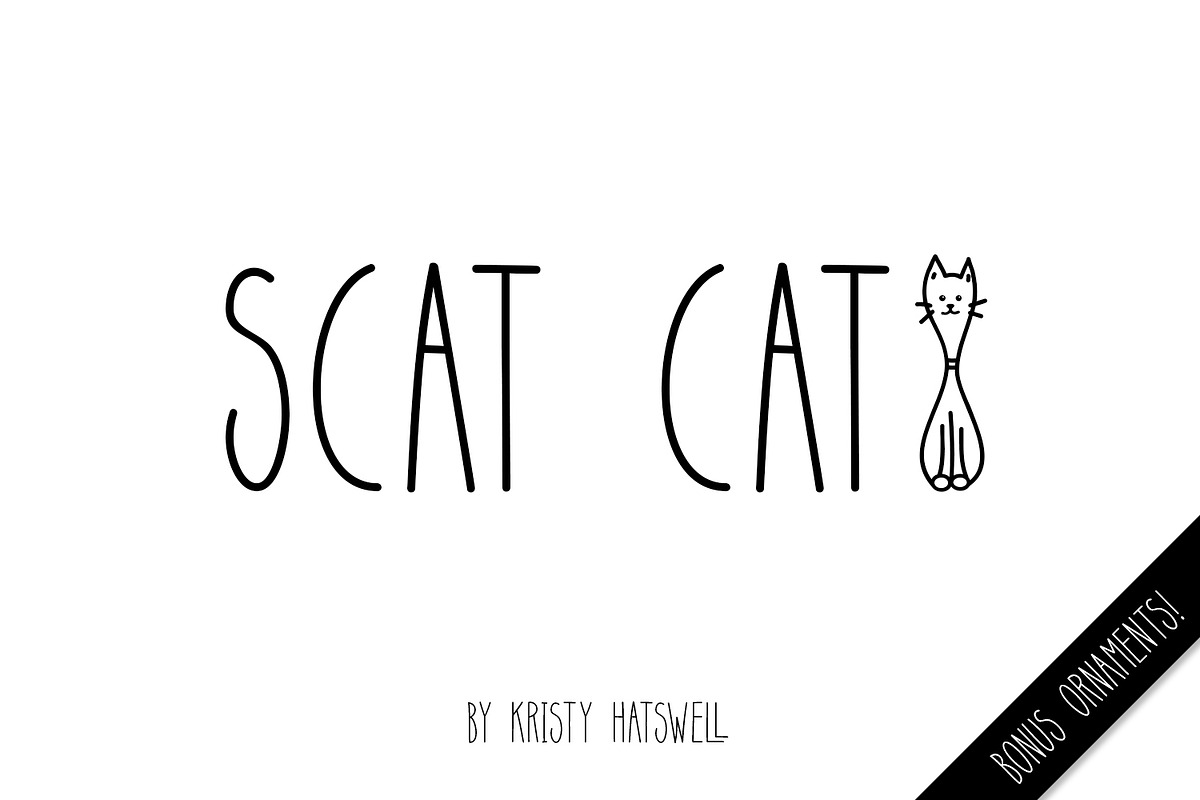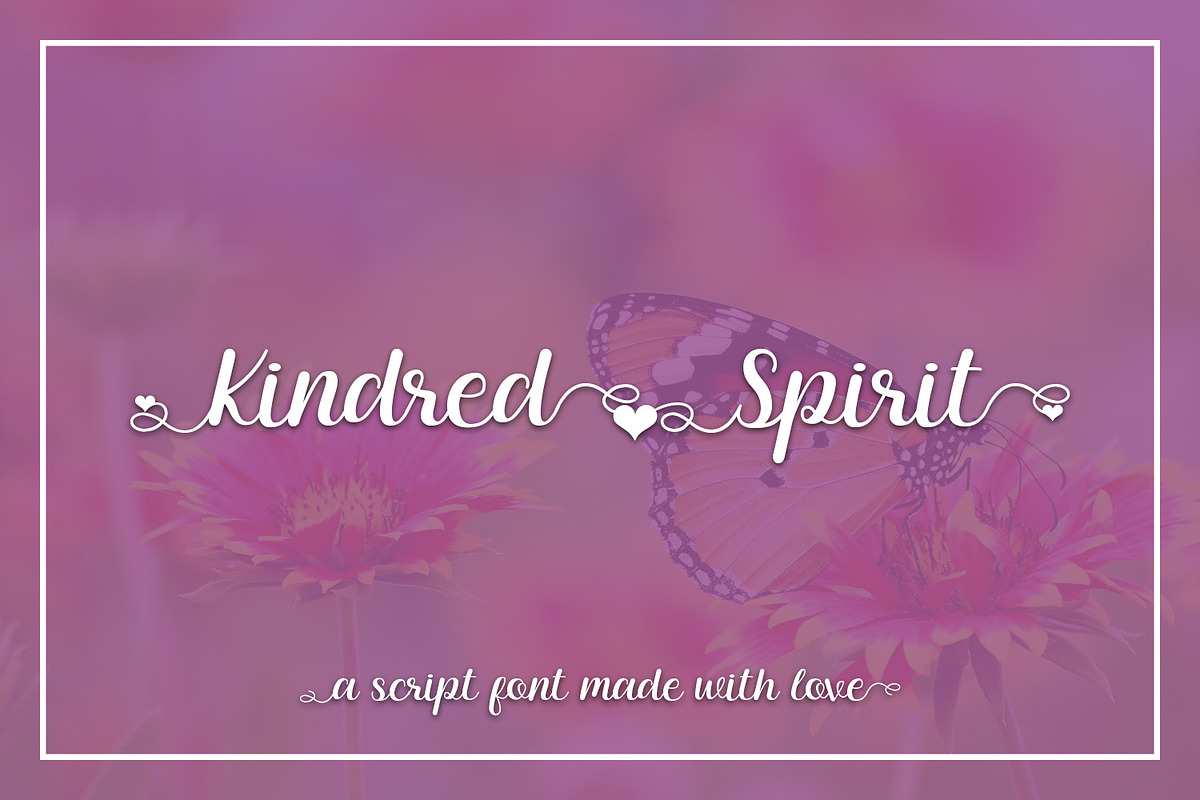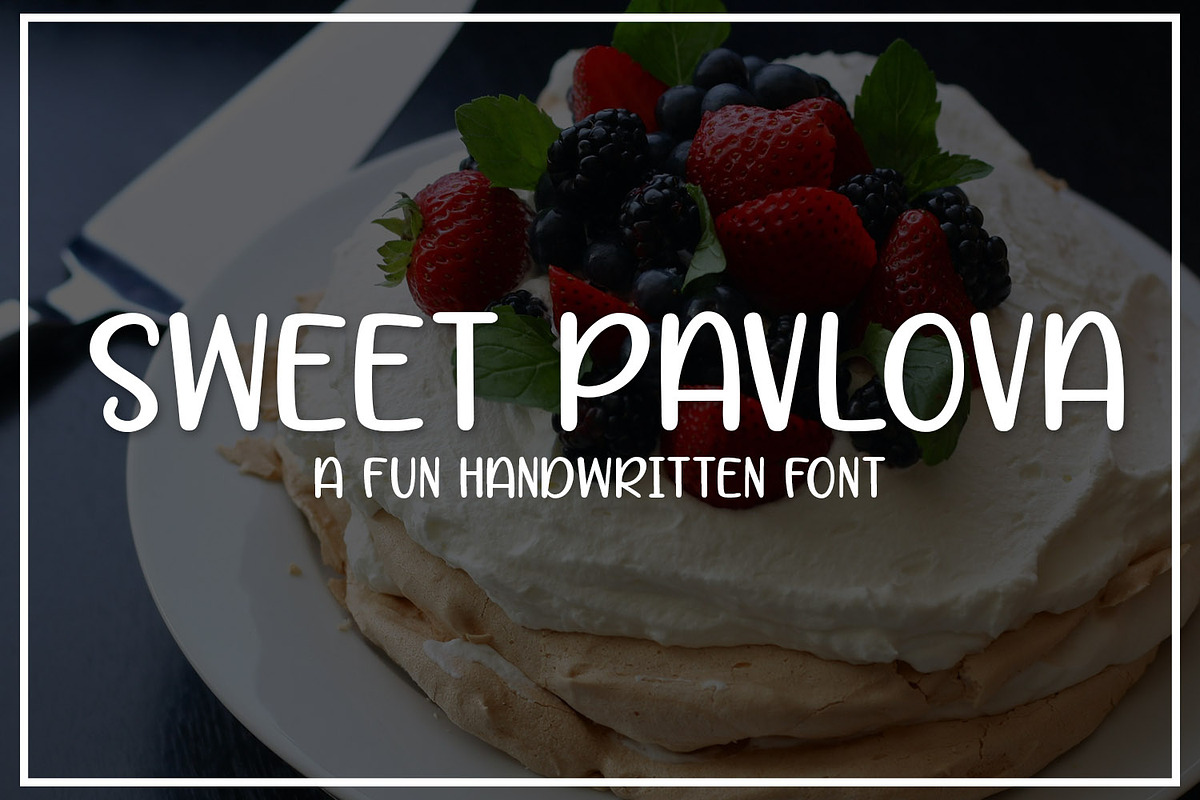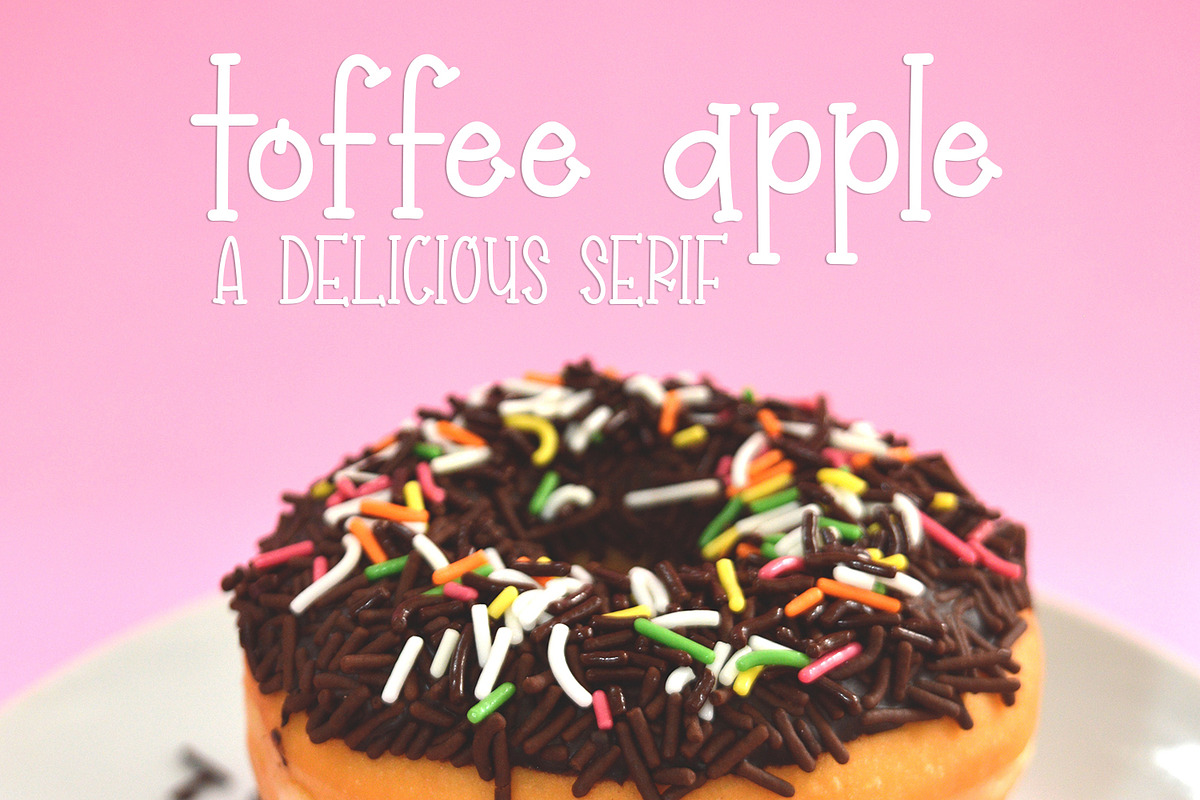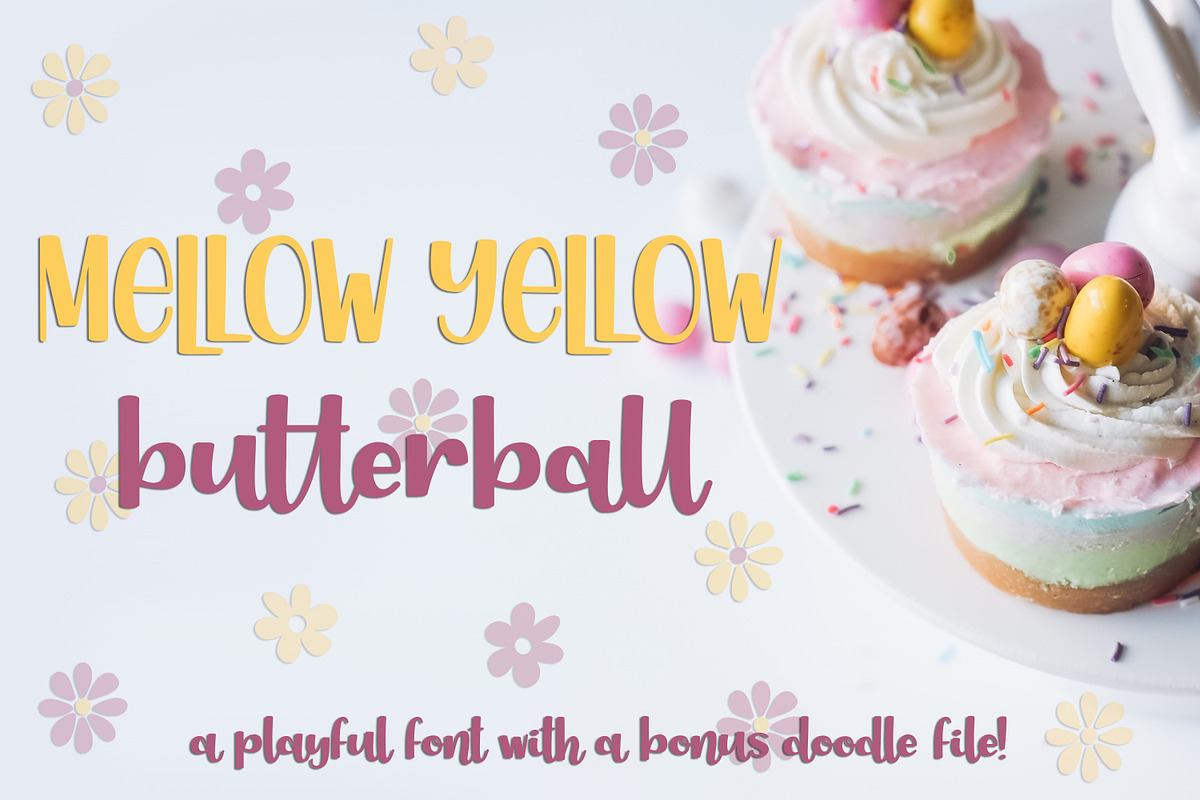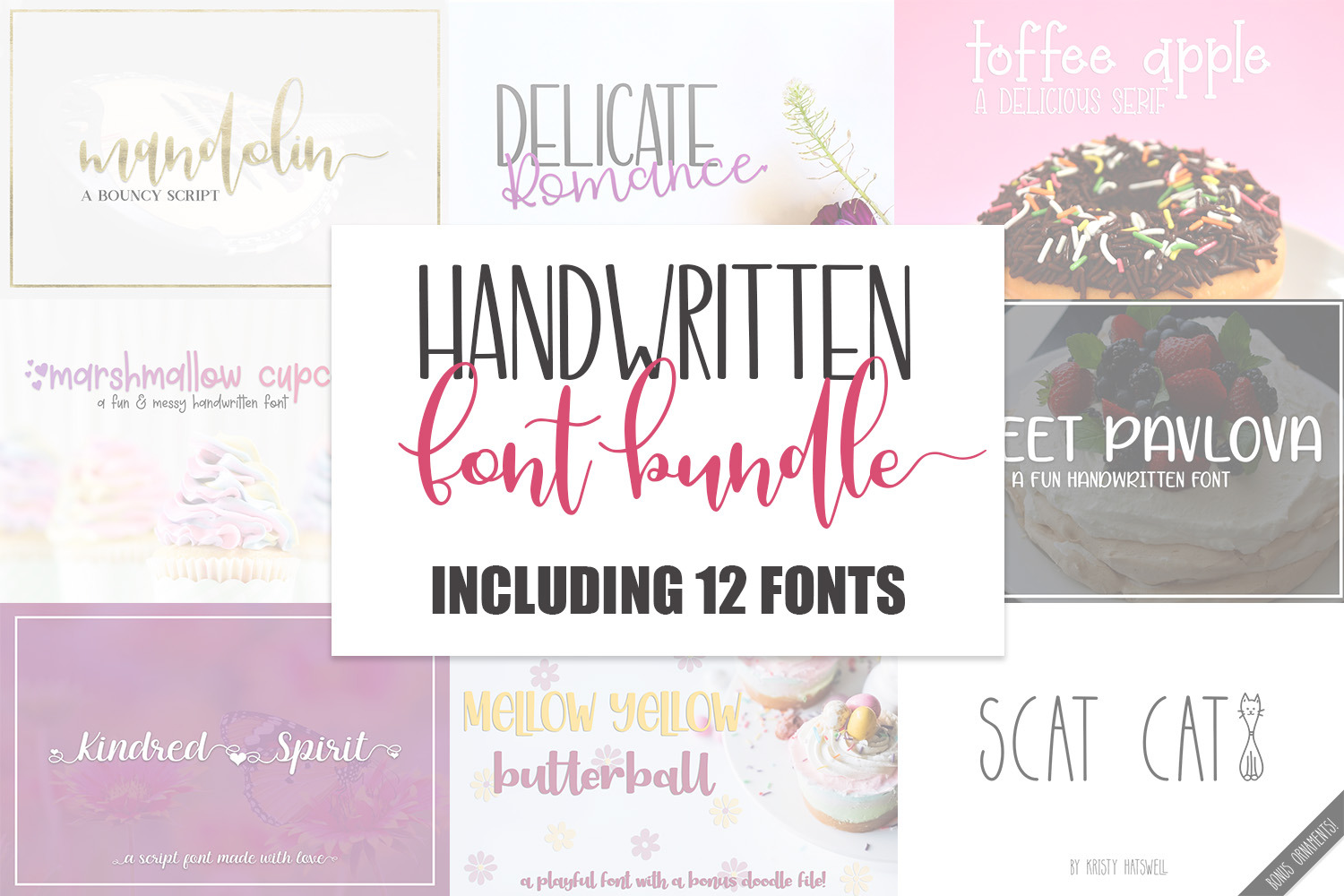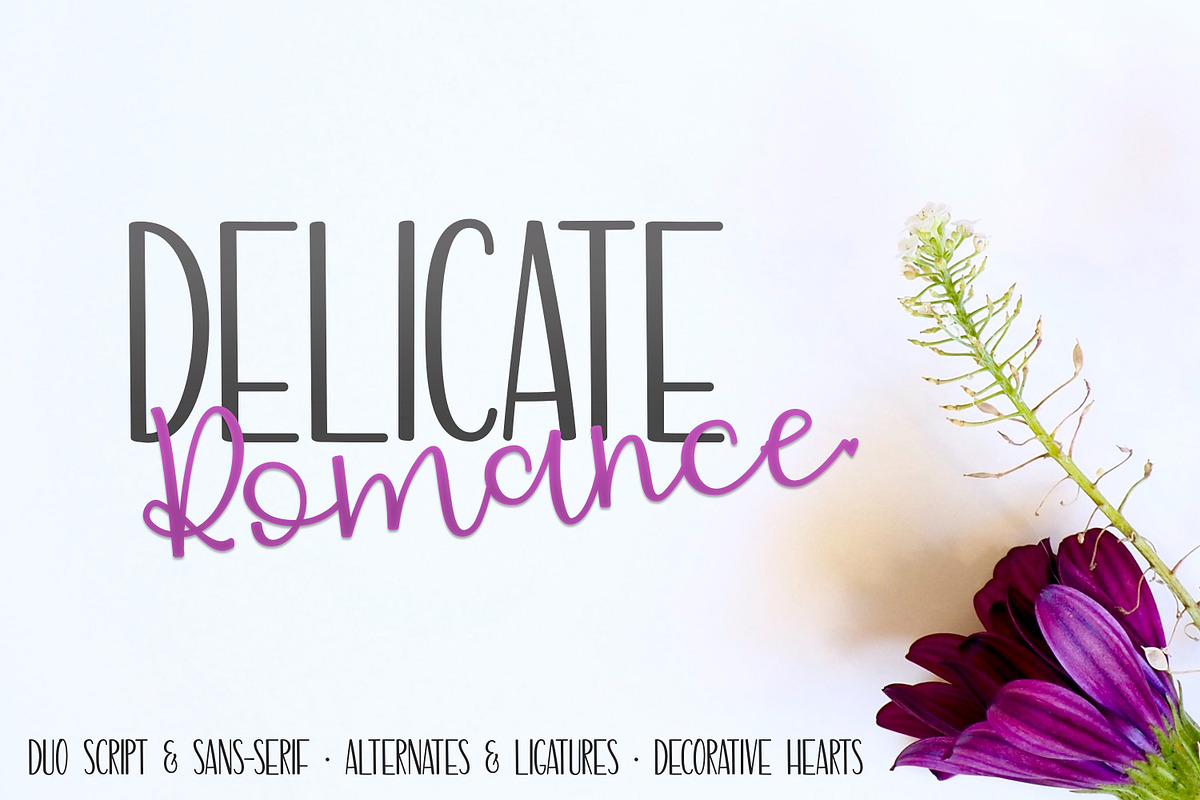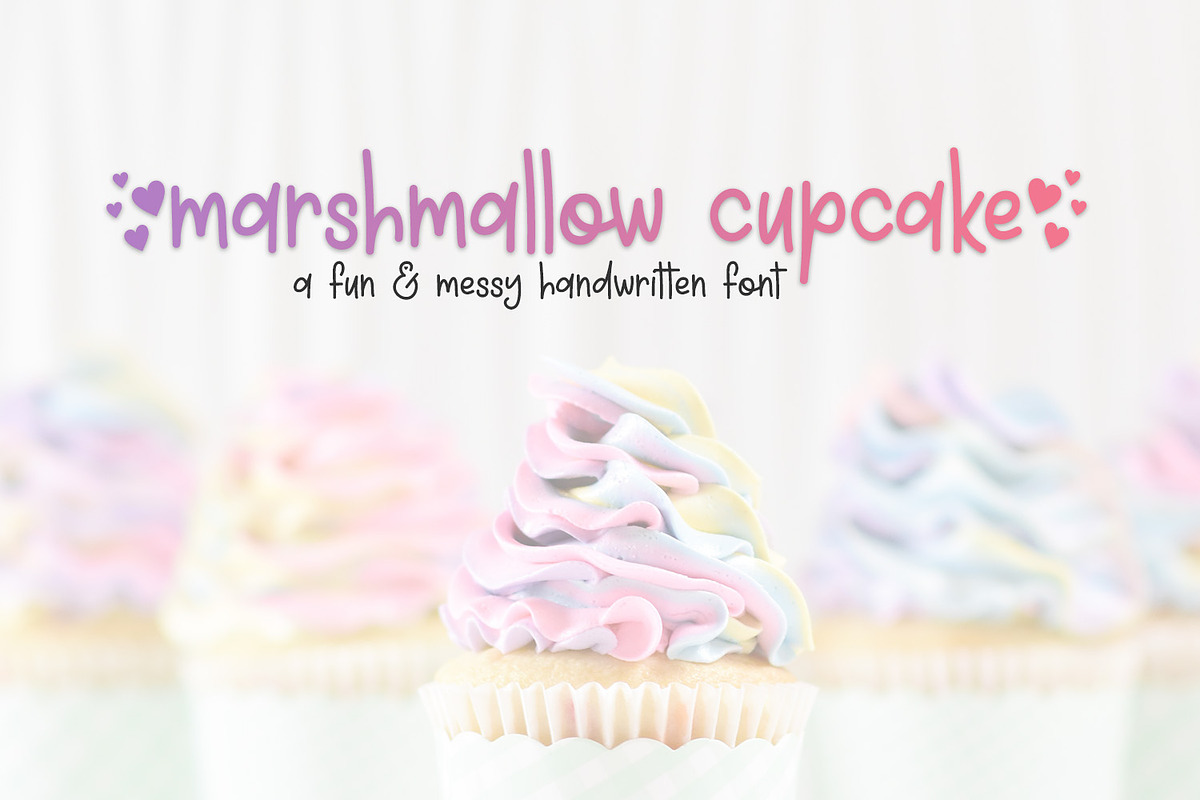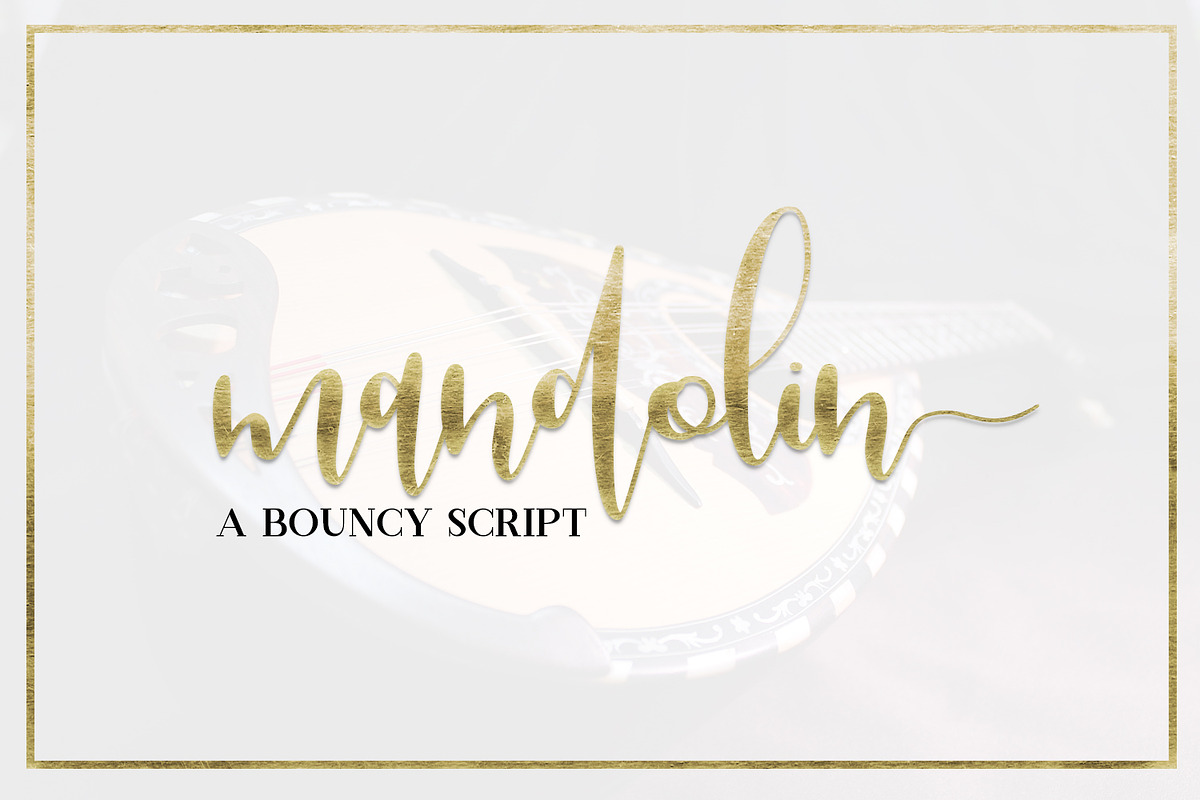
Handwritten Font Bundle - 12 Fonts
This meticulously curated handwritten font bundle features a diverse array of 12 font files, spread across 8 unique font families, each bringing its own charm and personality to your creative projects.
Elevate your design work with the Handwritten Font Bundle, where each font not only tells a story but also adds a layer of depth and personality to your projects. Perfect for designers, crafters, and creatives who appreciate the beauty of hand-drawn elements, this bundle is your ticket to captivating and memorable designs.
Mandolin: A handwritten bouncy script font, Mandolin dances across the page with lively, energetic strokes, perfect for adding a dynamic touch to invitations, logos, and personal blogs.
Delicate Romance: This duo combines a script and sans serif font, adorned with hearts perfect for Valentine's Day, weddings, and any project that calls for a touch of love. Its versatility makes it ideal for romantic invitations, branding, and heartfelt designs.
Marshmallow Cupcake: A fun, handwritten bouncy font that embodies joy and playfulness. Marshmallow Cupcake is your go-to for party invitations, children's book titles, and branding that aims to bring a smile.
Toffee Apple: A deliciously quirky serif that captures the essence of fun and adventure. With its unique character, Toffee Apple is suited for thematic event posters, artisanal product labels, and creative storytelling.
Sweet Pavlova: Sweet Pavlova offers the lightness of a handwritten sans serif, making it a delightful choice for dessert menus, fashion labels, and any project that seeks a gentle, inviting touch.
Kindred Spirit: A romantic script that flows effortlessly, Kindred Spirit is designed to bring elegance and a personal touch to wedding stationery, love letters, and boutique branding.
Mellow Yellow Butterball: This playful font comes alive with an accompanying dingbats doodle font, making it a fantastic pair for educational materials, children's entertainment, and creative projects looking for a dose of fun.
Scat Cat: A slender and graceful handwritten font complemented by a playful dingbats doodle font, the perfect choice for designers looking to blend textual elegance with whimsical illustrations. Ideal for jazzing up coffee shop menus, adding a personal touch to greeting cards, or creating standout social media content, this font duo invites creativity and fun into every project it graces.